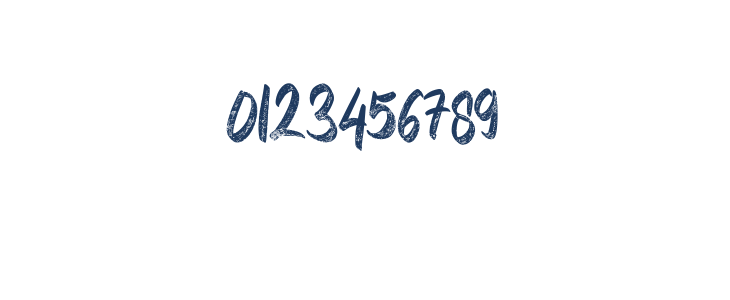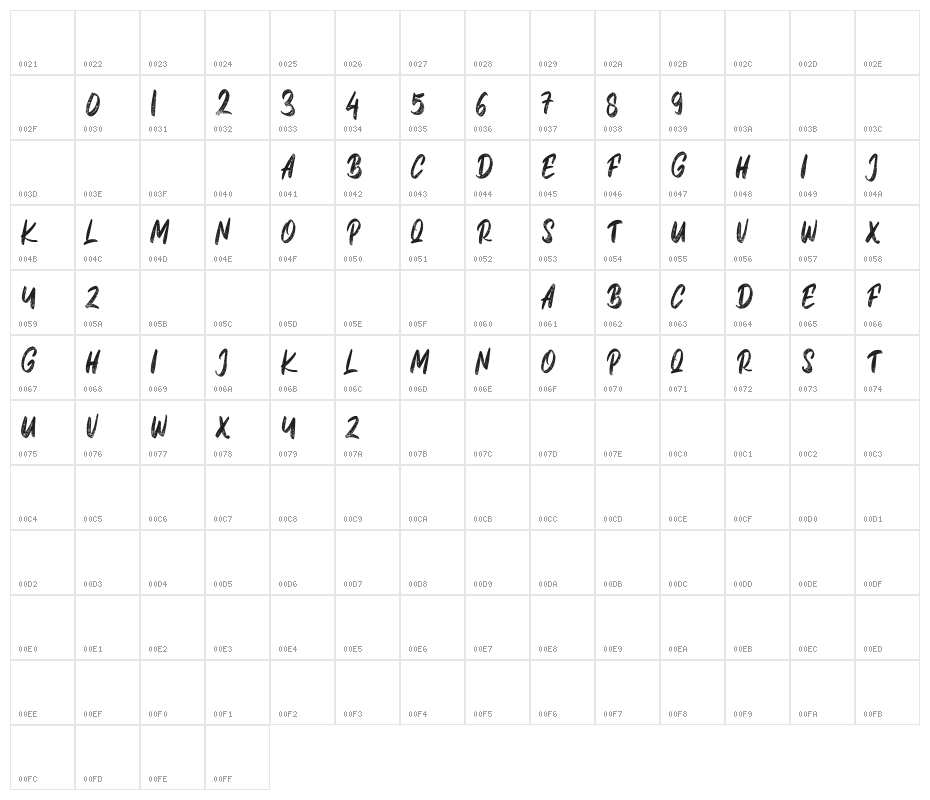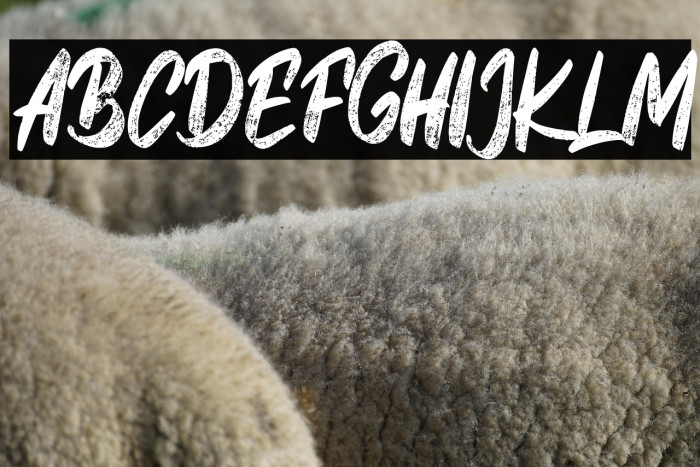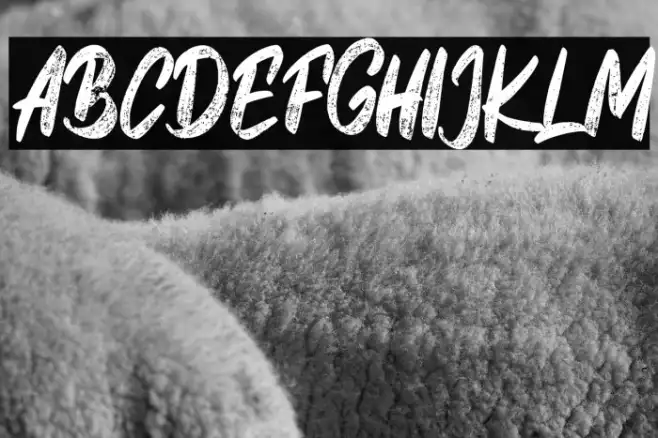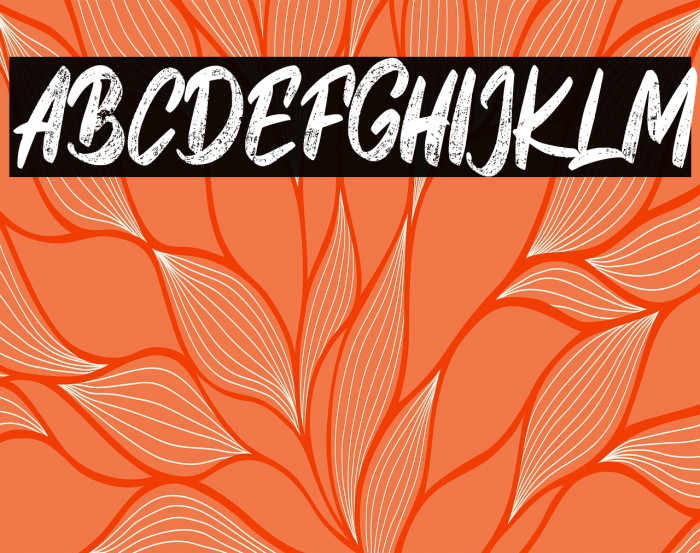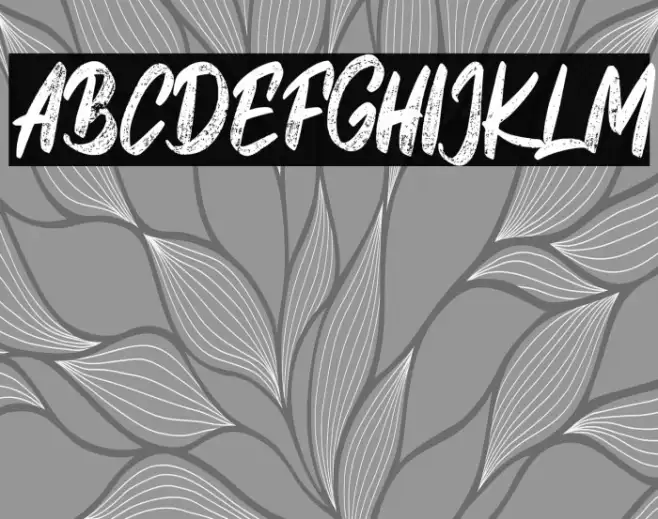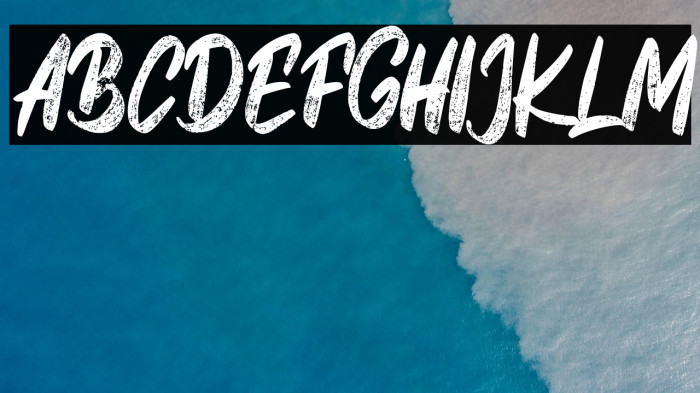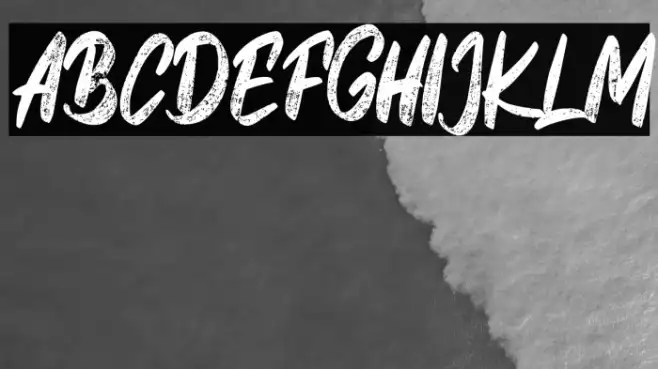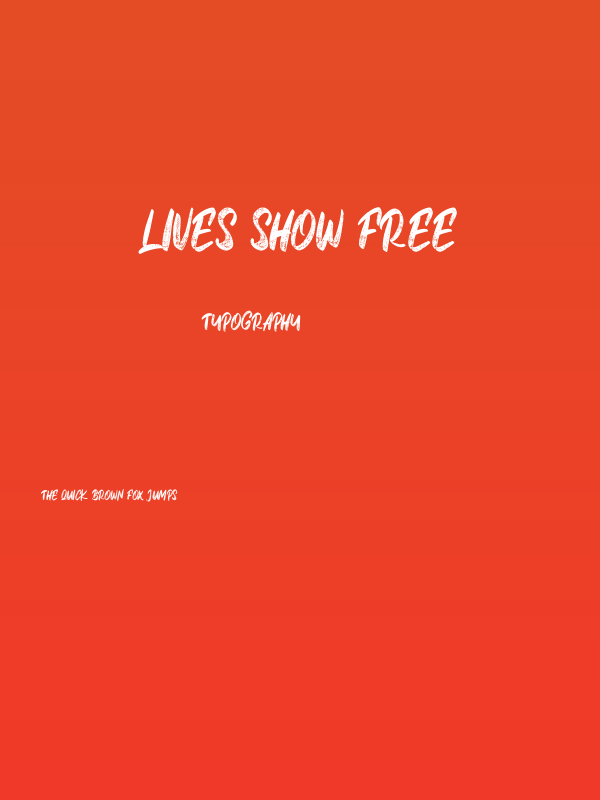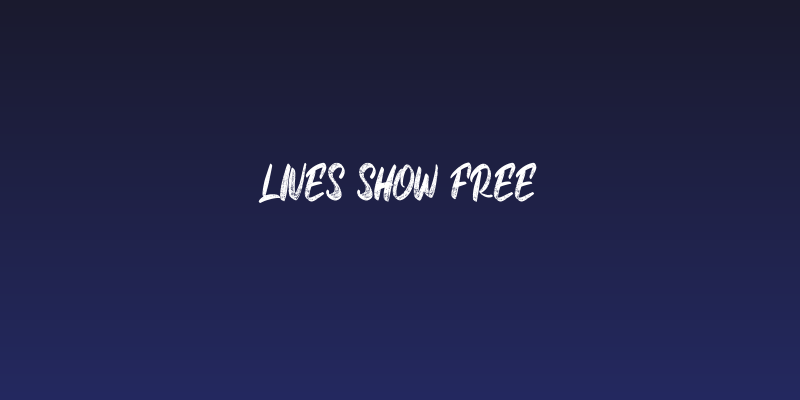
Lives Show FREE Font
Lives Show FREE Description
This font features a bold, brush-style script that exudes energy and dynamism. The letters are crafted with a textured, distressed appearance, giving them a rugged, hand-painted look. The uppercase and lowercase characters maintain a consistent style, with sweeping curves and sharp angles that add to the font's expressive nature. The numbers and special characters follow the same aesthetic, ensuring a cohesive look across all text. This font's unique style makes it ideal for projects that require a bold, artistic touch.
| Proposed Projects | Ideal for branding, posters, album covers, and any project requiring a bold, artistic touch. |